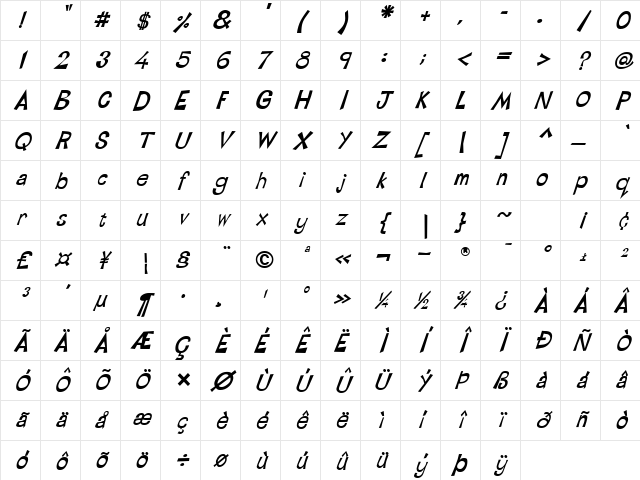
Complete LTTapeside Regular BoldOblique glyph index. Displaying only characters natively supported by LTTapeside Regular BoldOblique font.
LTTapeside Regular is a composed and adaptable typeface that performs quietly and consistently across a wide range of design contexts. The slanted form adds forward momentum and visual energy. Its bold stroke weight gives it real presence on the page.